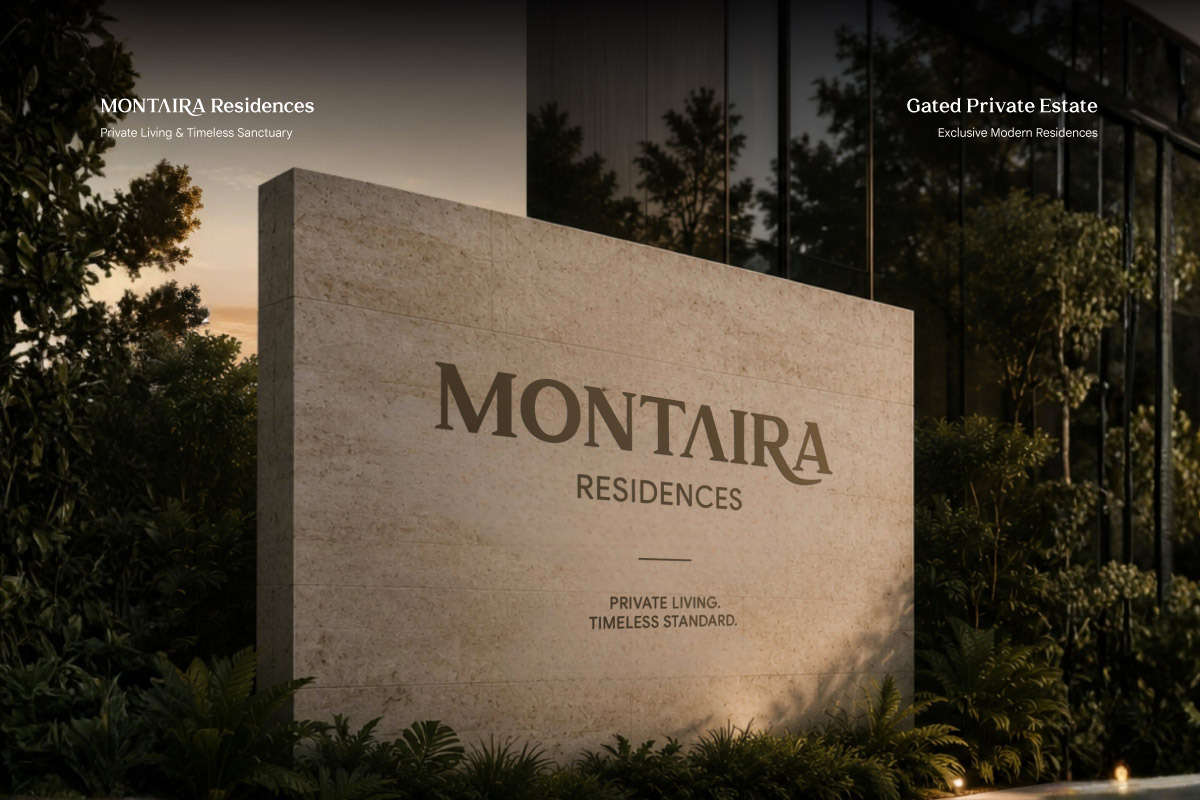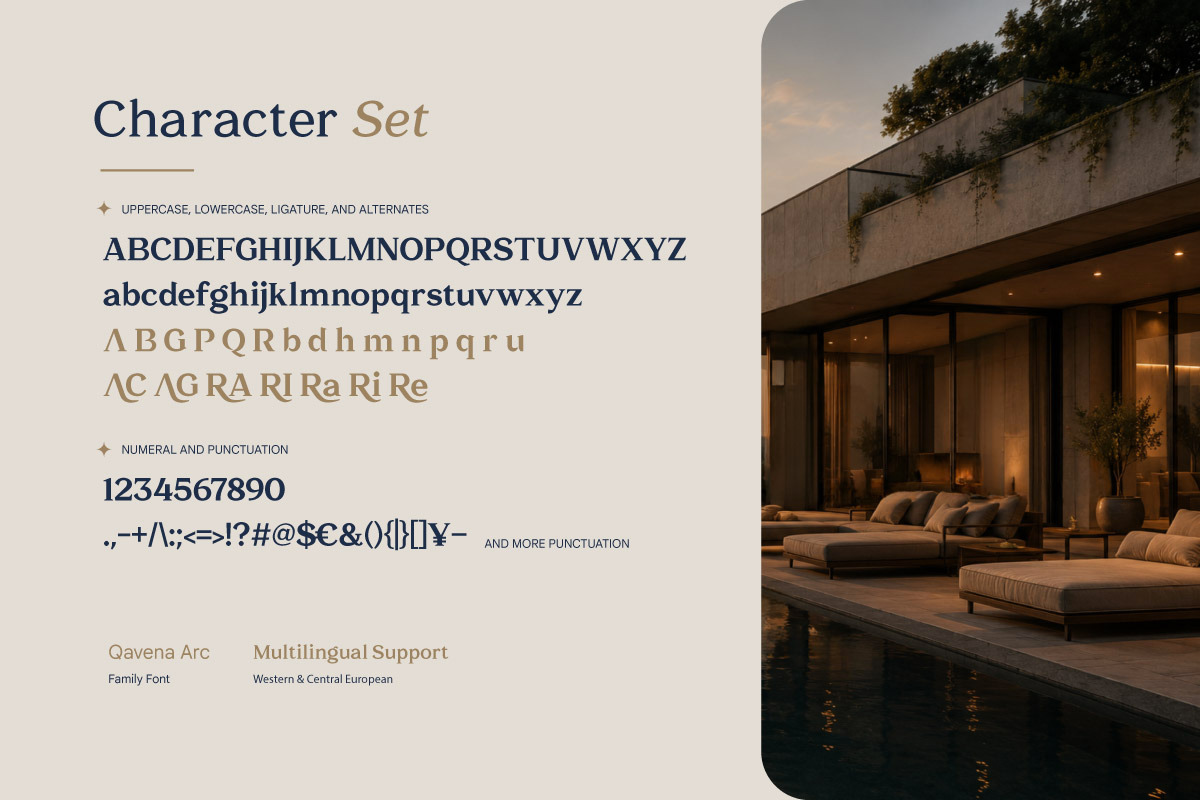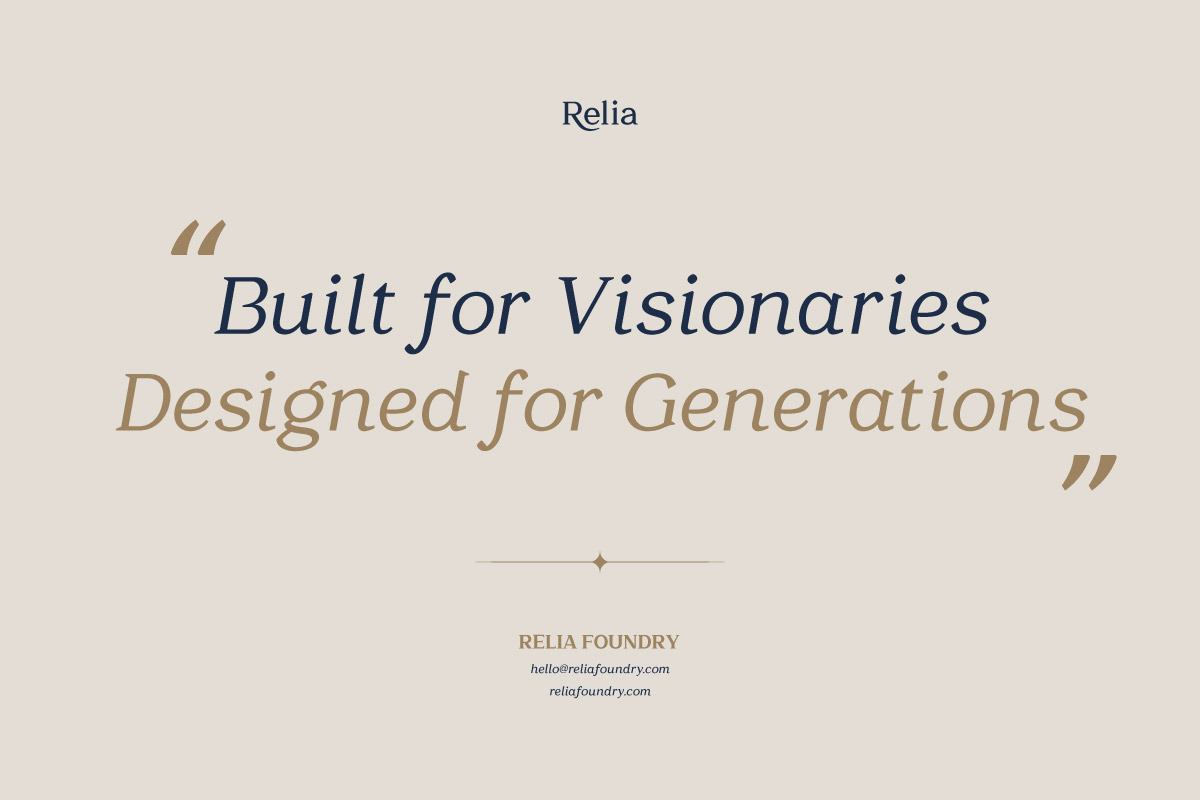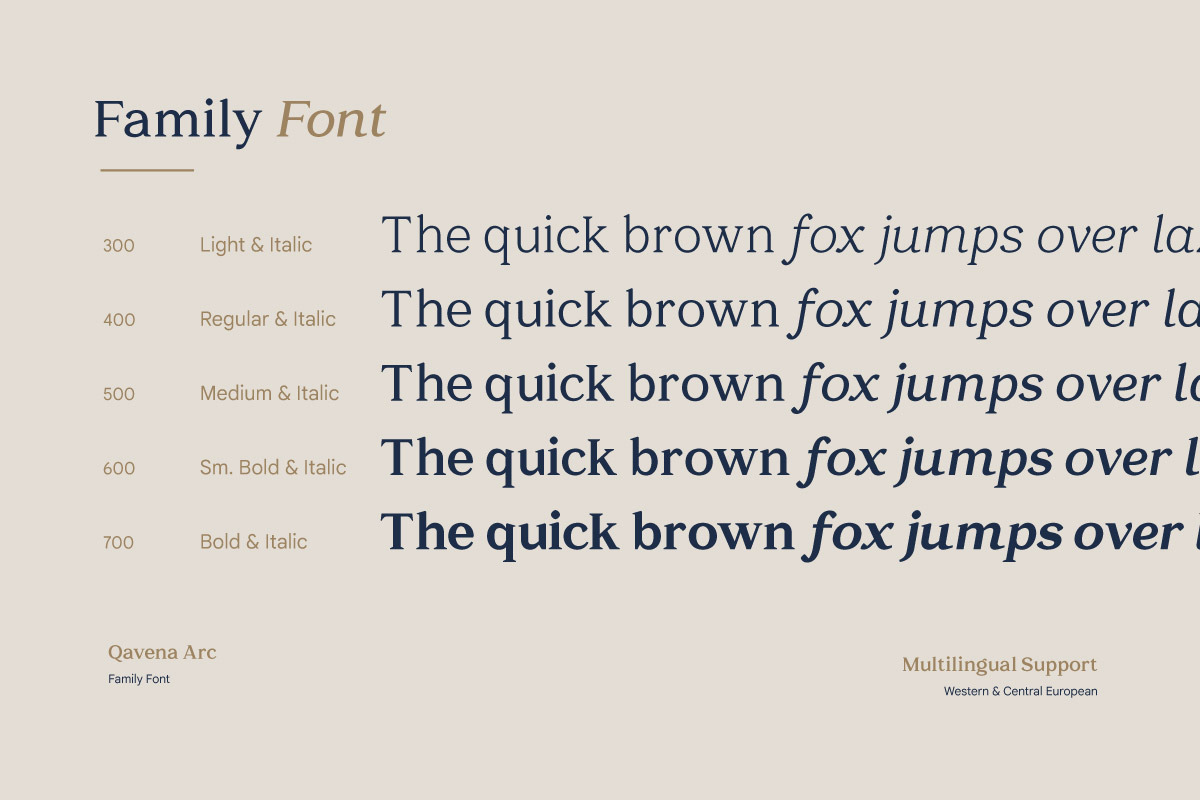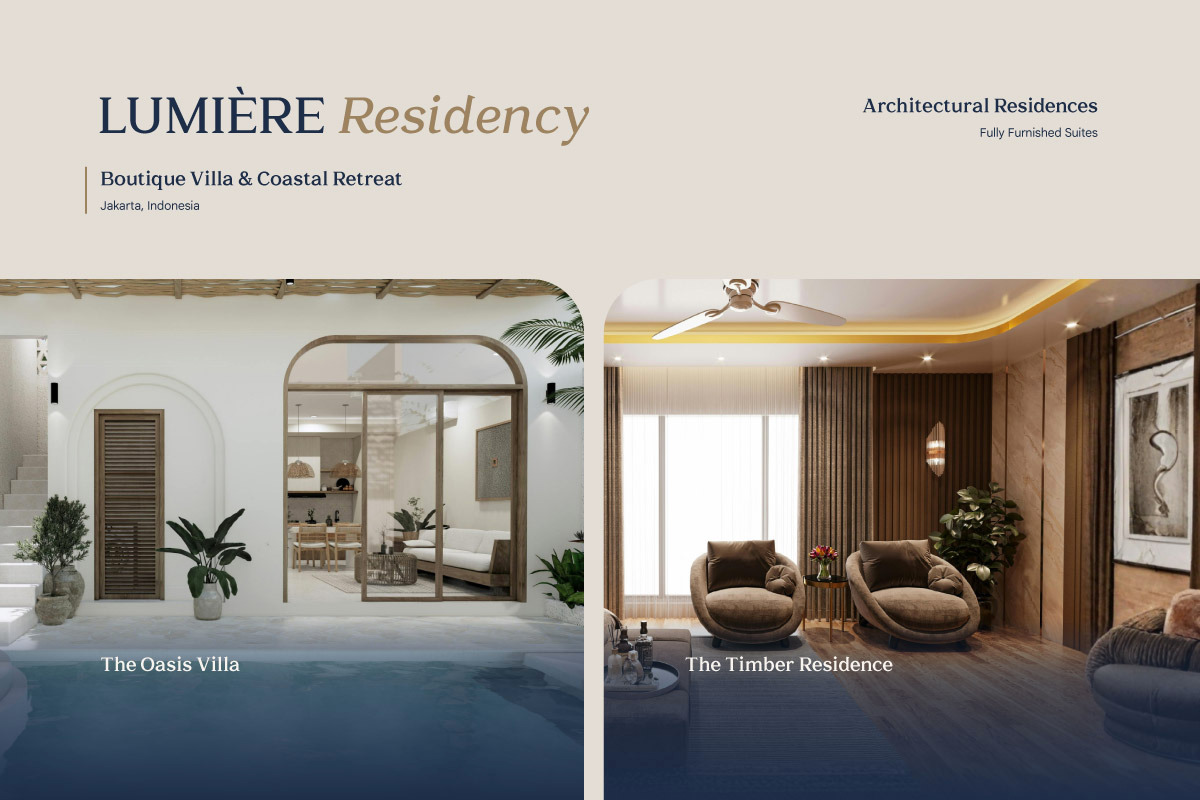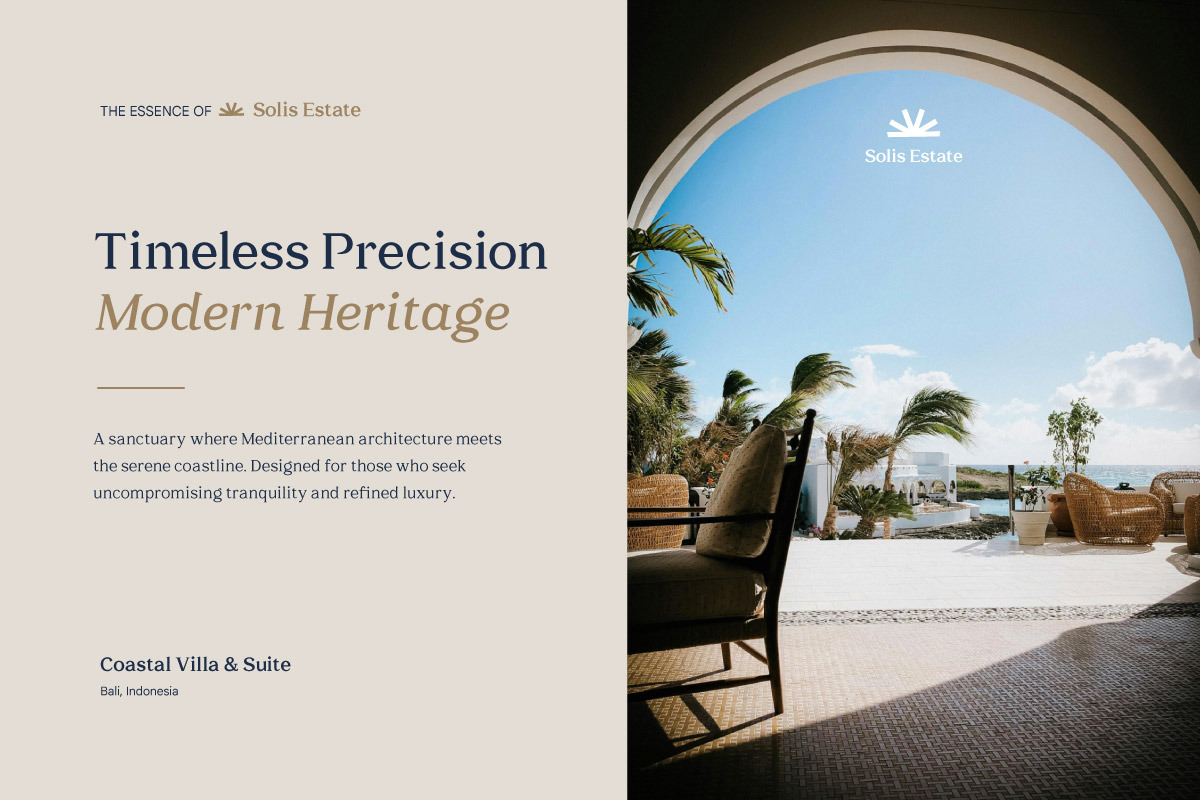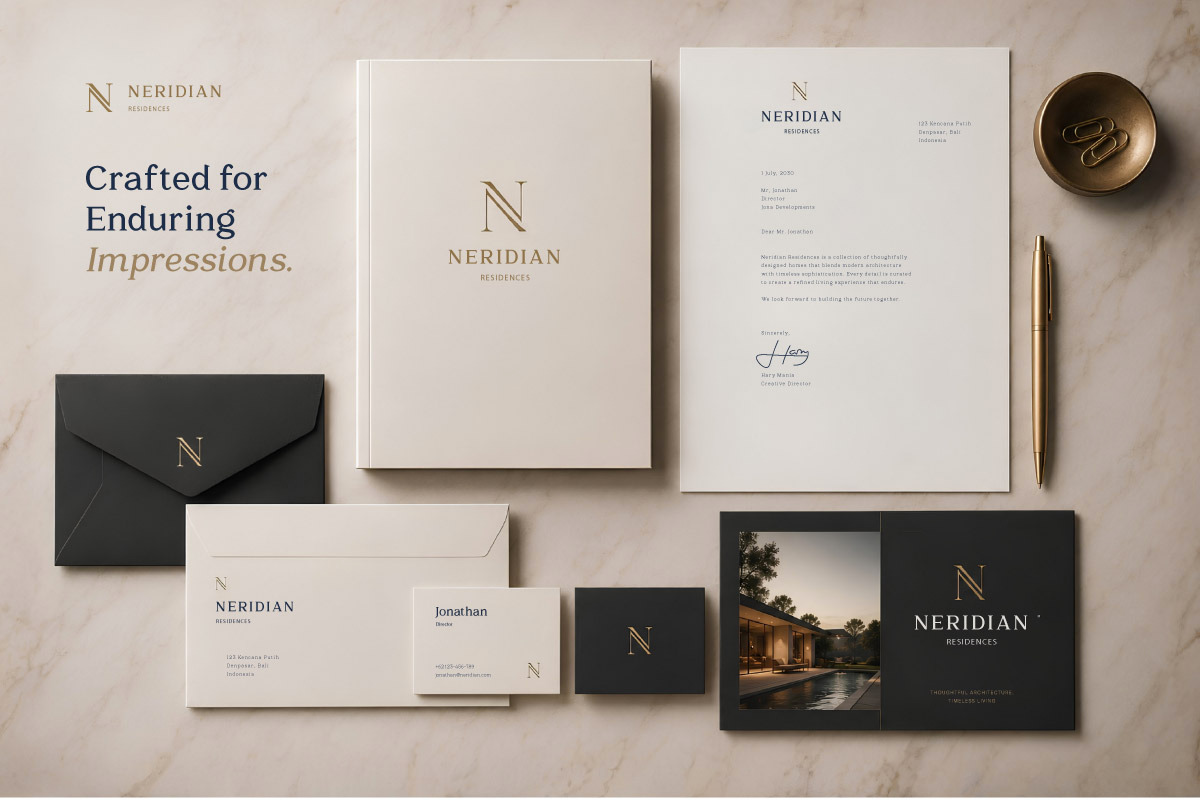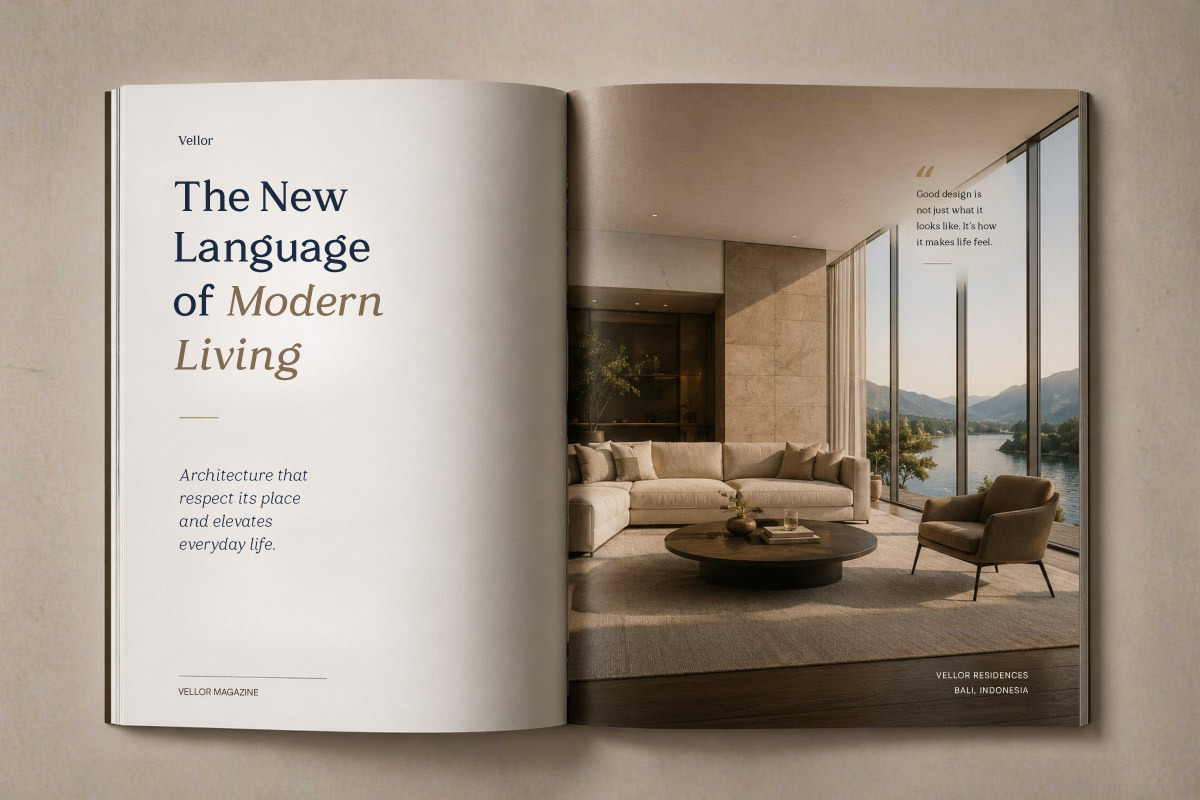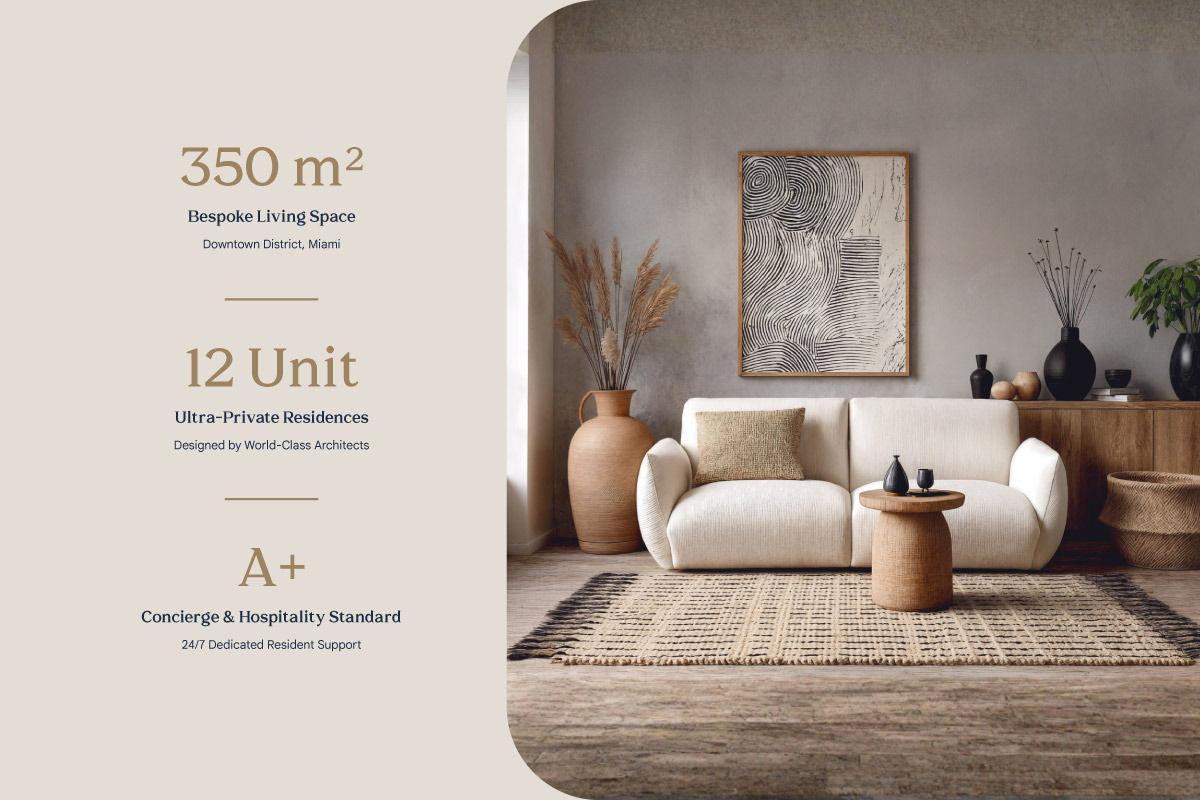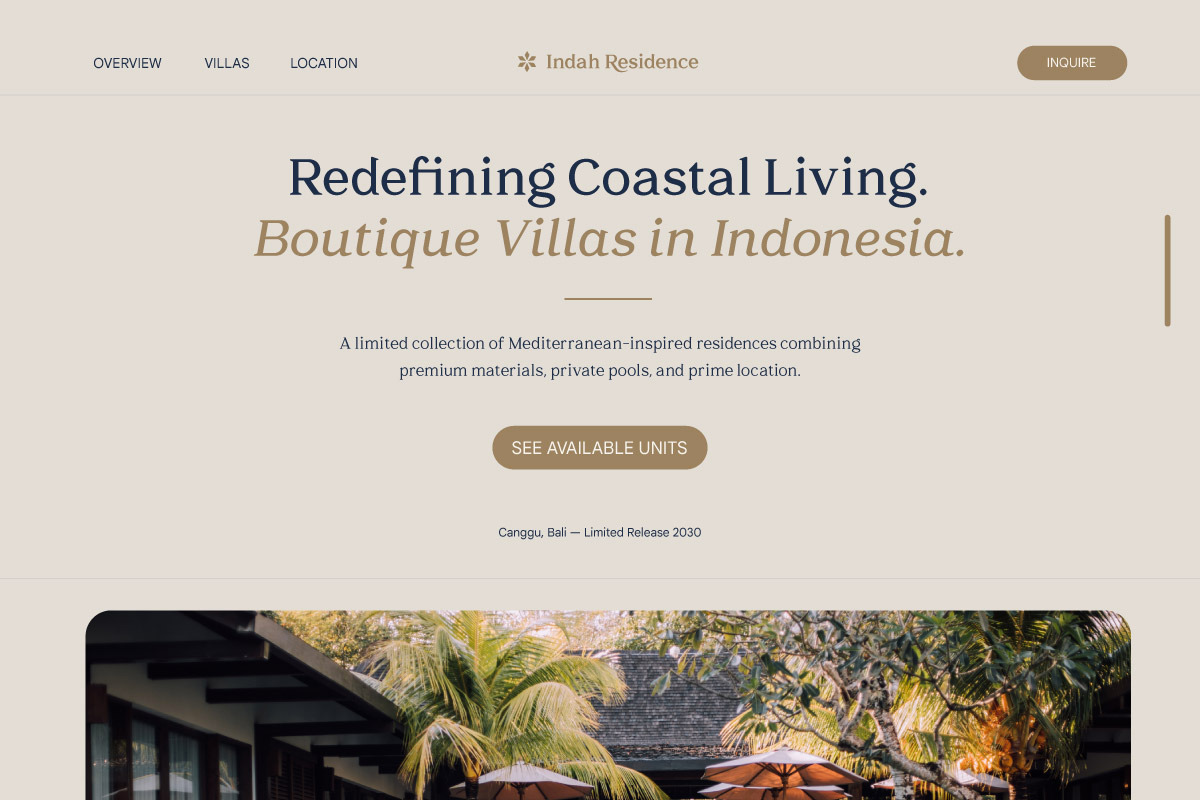
Qavena Arc - Residential Serif Font
Qavena Arc is an organic serif font family designed for residential and property-related visual communication. Its curved serif details, balanced proportions, and natural letterforms create a warm typographic character suitable for residential branding, property identities, architecture, interior design, and lifestyle projects.
Designed for both headlines and brand communication, Qavena Arc works across property logos, residential brochures, real estate websites, editorial layouts, signage, advertising materials, and social media content. Multiple weights and italics, stylistic alternates, custom swashes, ligatures, and multilingual support provide flexibility for creating consistent typography across different applications.
Qavena Arc is suitable for residential property developers, real estate agencies, housing projects, apartment brands, villa residences, architectural studios, interior design businesses, hospitality properties, and lifestyle brands. Its organic serif structure helps maintain a distinctive and readable typographic appearance across both print and digital formats.
- Multilingual Support: Fully supports 85+ languages, including: